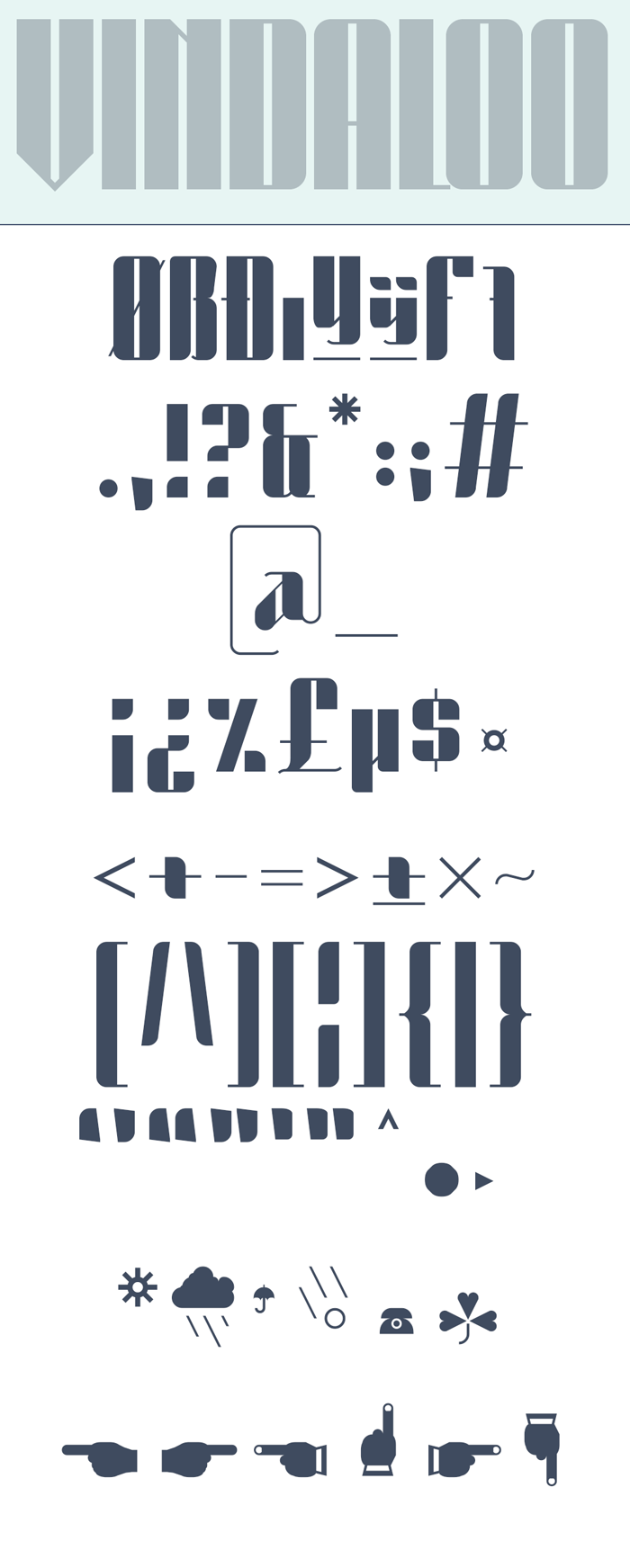
• STF_VINDALOO (Extra Bold Condensed) - An extra bold and condensed Art-Deco display sans
This initially had already been a published work from my early days of Fontstructing and the original had a lot that was less than desirable. For a start, the obvious rookie mistakes, that were due to the lack of typographic education as well as insufficiant knowledge about the overall Fontstruct-Editor Expert-mode features.
Now several years later, fully acustomed to the physiology of Fontstructing (composite bricks, filters, behaviour) but above all, to be able to visualize ahead and to conceive imaginary conceptual thinking for new ideas or solutions within the FS-Editor limitations. And in return to bounce back from these restrains and make them work in my favour.
So now I feel like I have to give some of my older Fontstructions a serious reassessment, and perhaps do some revisions here and there.
There are numerous hidden gems and potentials within these works, for which back in the day I remained unable to accomplish to their full glory and complete satisfactorily successful end result and design objectives.
To get back at this particular font:
There was some unsolidified hidden beauty in certain forms that had yet to 'truly' be revealing itself. I completely overhauled a clone but basically ended up with more of a new font instead.
And I really like it
I like this kind of piano fonts.
Nice dingbats and smileis too.